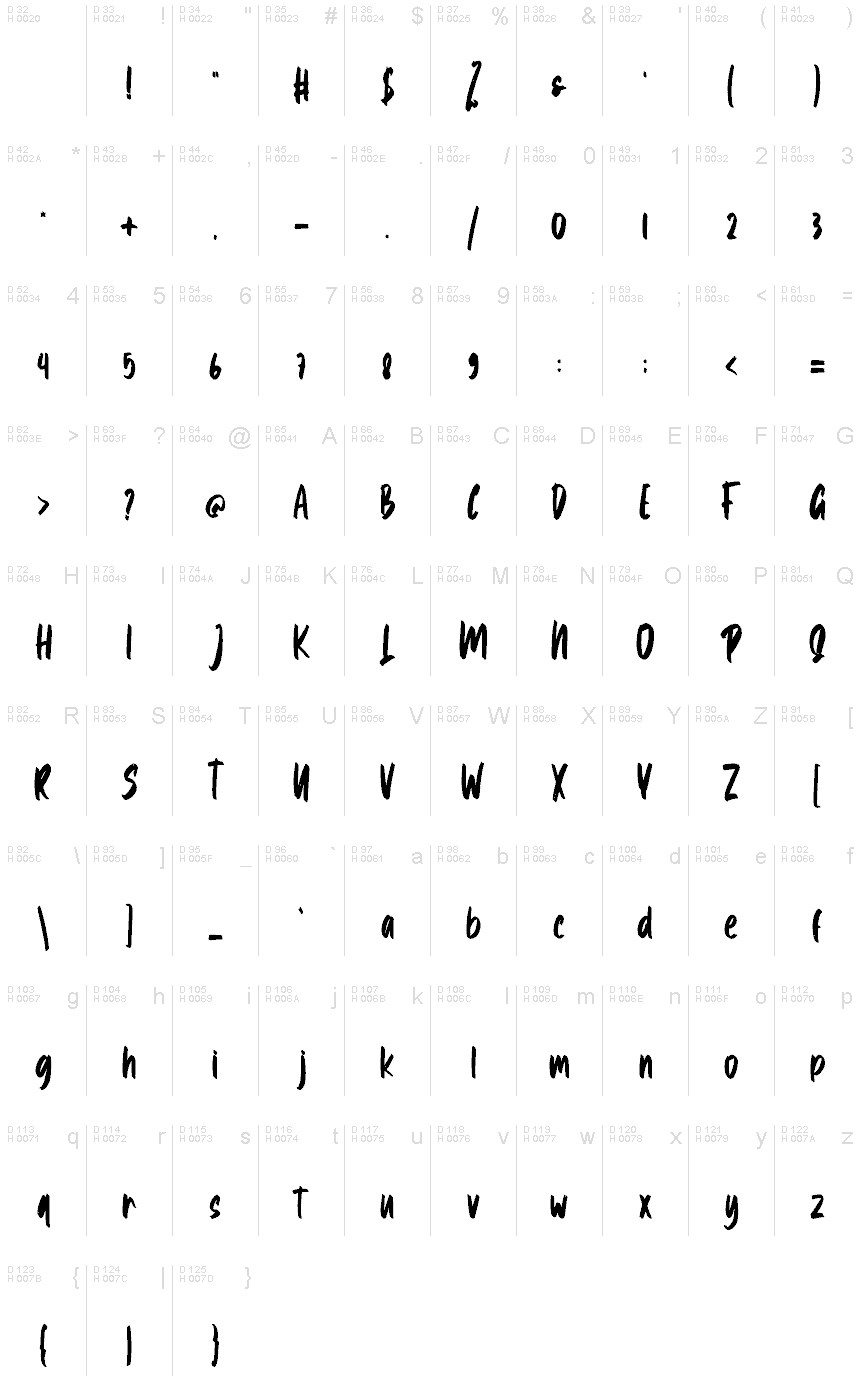
Barttela
Barttela brush script font was created in a single day by Skiiller Studio. The characters were inspired by the popular hand-lettered sign paintings popular in the 60s where letters and words were drawn for different purposes ranging from public service advertisements to band names.
Barttela is a bold, modern brush typeface with condensed width. It works well with dark and bright backgrounds. Use it on logo design, branding, packaging design, apparel and merchandise accessories, website design (headers and body texts), social media posts, advertisements, invitations, posters, and print accessories such as notepads. Use the free version and create your own branding design, t-shirts, posters and stickers. Barttela is perfect for projects dealing with music and music bands.